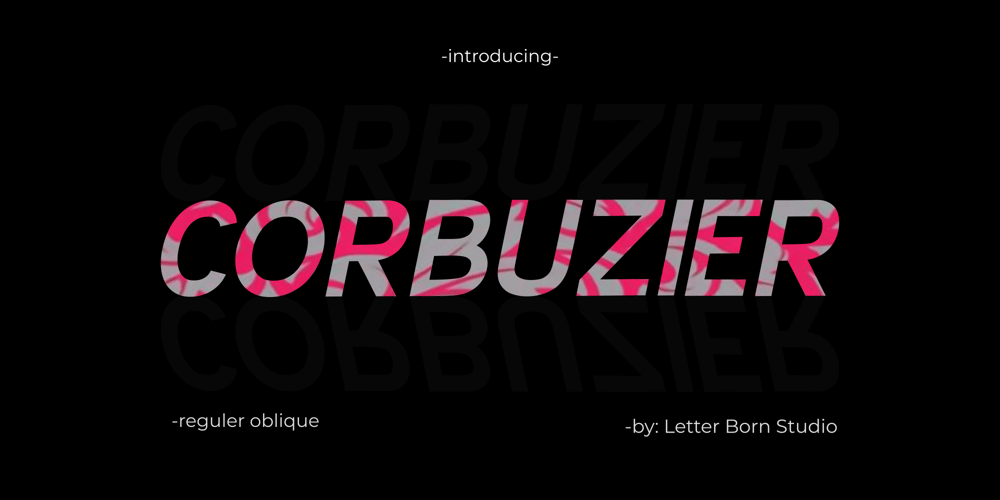
Corbuzier Font Family was designed by Firman Satrio and published by Letter Born Studio. Corbuzier contains 2 styles and family package options. Corbuzier Regular Oblique is a modern font with a dynamic style that blends a professional and innovative impression. With its elegant slanted lines, this font offers a futuristic touch while remaining highly readable, making it ideal for designs that require a bold and contemporary look. Perfect for branding, headlines, or promotional materials that aim to stand out and capture attention. The uniqueness of each letter makes Corbuzier the perfect choice for designs that leave a strong and stylish impression.